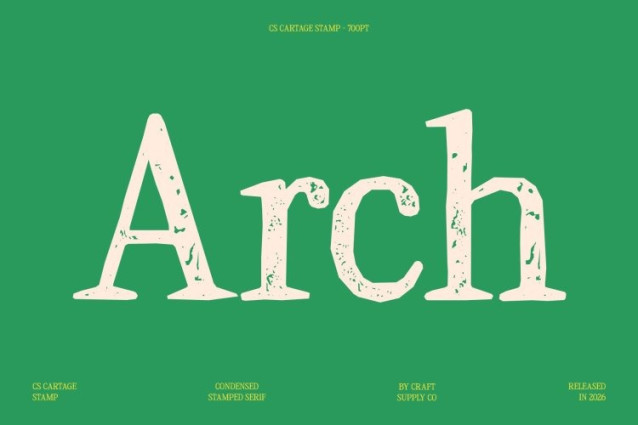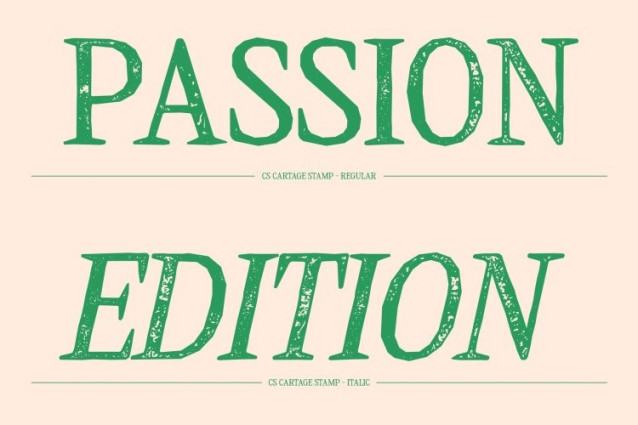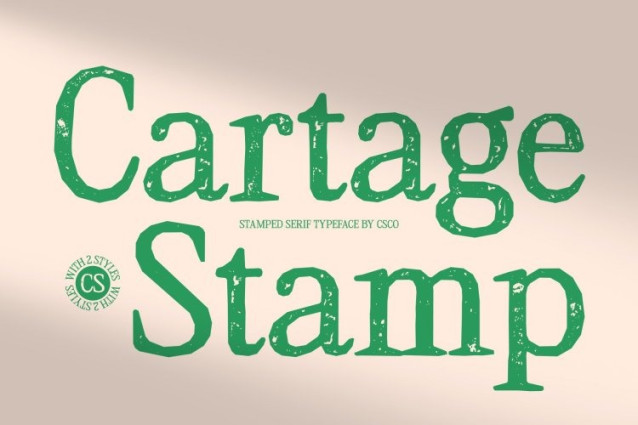
CS Cartage Stamp Font
CS Cartage Stamp Font – This is a modern serif font designed with a slim, clean structure that emphasizes balance, precision, and readability. Its carefully crafted letterforms create a polished and sophisticated appearance, making it an excellent choice for designs that aim to communicate professionalism and elegance. Enhanced with a stamp effect, the font gains a subtle vintage texture that introduces depth and character while preserving its modern clarity.
Contemporary Style with Classic Influence
While rooted in contemporary design principles, retains subtle hints of classic serif elegance. The graceful serifs and balanced proportions evoke the familiarity of traditional typography, while the modern construction keeps the overall look fresh and relevant. The stamp effect adds a slightly distressed, inked texture reminiscent of vintage print techniques, blending modern sophistication with timeless charm.
Elegant Balance of Clarity and Character
This font maintains strong readability thanks to its clean structure and thoughtful spacing. The textured stamp finish brings a handcrafted quality that adds personality without overwhelming the refined design. This balance allows the font to feel both professional and expressive.
Versatile for Branding, Editorial, and Packaging
Ideal for corporate branding, editorial layouts, presentations, packaging, and modern marketing materials, this font adapts effortlessly across a wide range of design applications. Its combination of contemporary elegance and vintage stamp texture creates a distinctive typographic voice that feels stylish, trustworthy, and timeless.